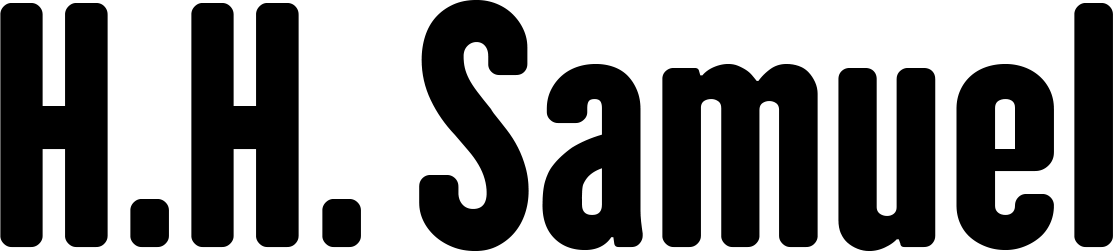
H.H. Samuel Font
H.H. Samuel font comes with casual and friendly characters to create an approachable and modern vibe with the readers which is a very valuable feature and you can use it for texts, websites, apps, signages, and user interface. This san-serif font offers you an incredible collection of characters with both the uppercase and lowercase of the alphabets, numbers, etc.
Tipografía sans-serif, black y extra condensada, con acabados redondeados en los vértices. Perfecta para diseñar posters y grandes titulares donde se busque una fuente con fuerza y económica para el espacio horizontal.
El nombre de esta fuente está dedicada a mi querido sobrino Samuel H.H., que ahora ya es bachiller y se prepara para la universidad.